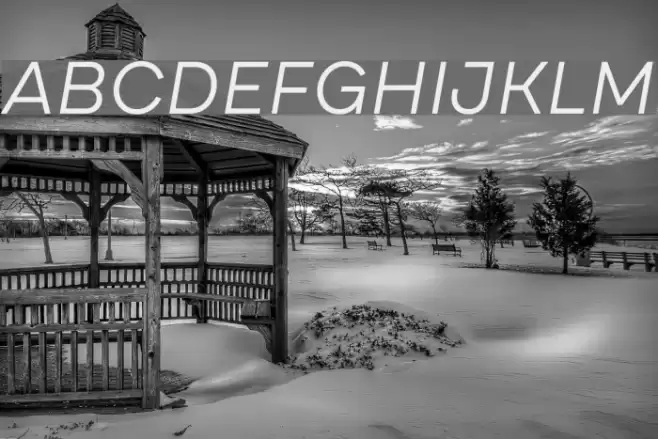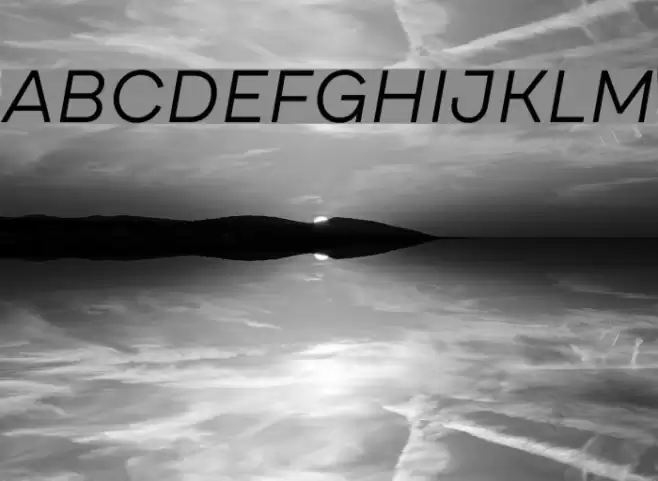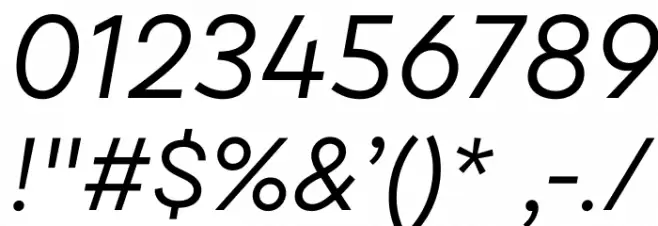
DraftB-RegularIta Font
DraftB-RegularIta Description
This font features a sleek and modern sans-serif design with a slight italic slant, giving it a dynamic and forward-moving appearance. The characters are clean and well-defined, with consistent stroke widths that provide a harmonious and balanced look. The uppercase letters are bold and assertive, while the lowercase letters maintain a friendly and approachable feel. The numerals are clear and easy to read, making them suitable for various applications. Special characters are included, maintaining the font's overall aesthetic. The font's design is versatile, making it suitable for both digital and print media.
A modern, italic sans-serif font with clean lines and balanced proportions from Sans Serif fonts.
- Proposed Projects: Ideal for branding, advertising, editorial design, and digital interfaces.